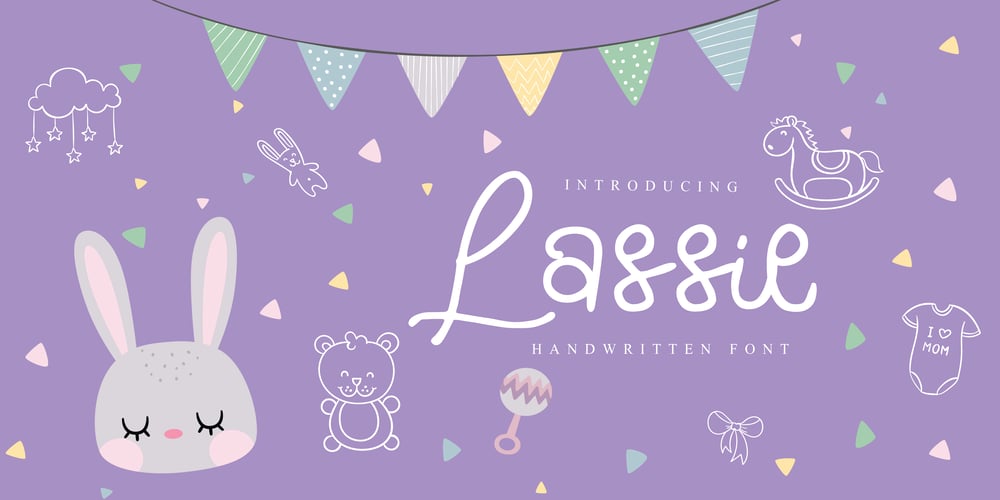
Lassie Font Family was designed by Mariyana and published by Goodigital13. Lassie contains 1 styles and family package options. his is so perfect for invitations, monograms, wedding, fashion, branding, label, handdrawn or logotype.. Everything is made with the funny brush. So you can be sure they will work well together! It is suitable for you to use in making t-shirt design, quote, label, packaging, logo type, or long writing.